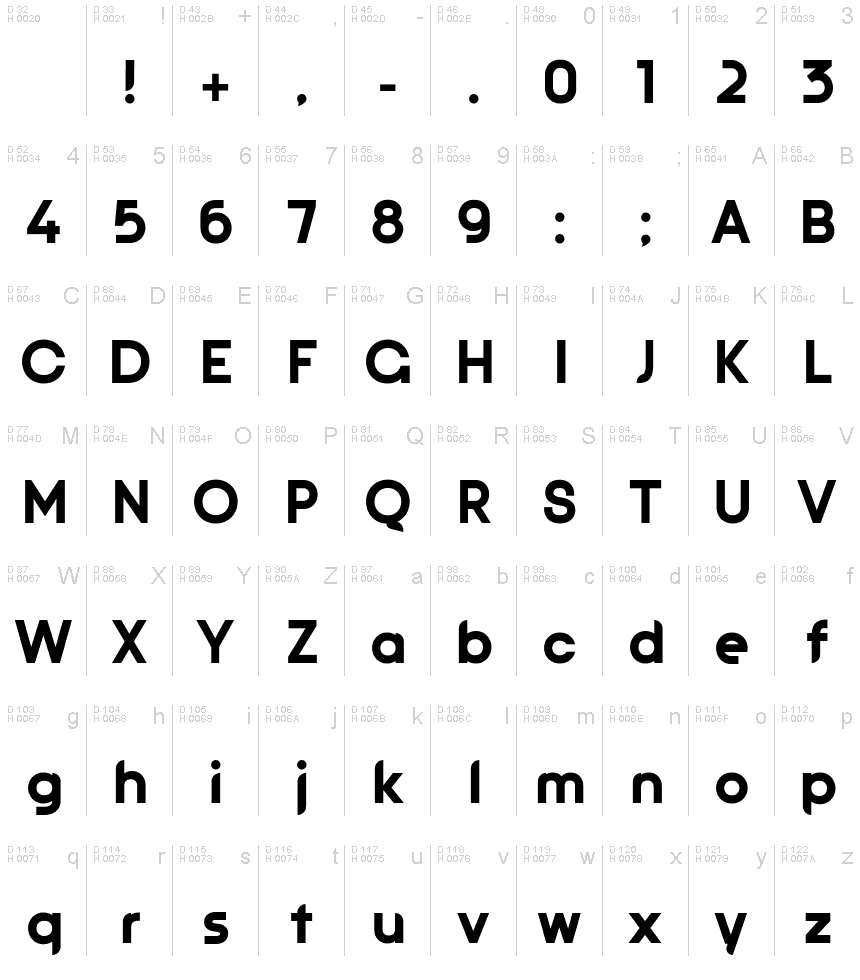
casinospieles-de
Looking for a bold, impactful font that's perfect for your next design project? Look no further than casinospieles-de! Designed by the talented Sadritsky, this sleek and stylish sans serif font is ideal for a wide range of creative projects, from logos and branding materials to posters and digital graphics. With its semi-bold weight and clean lines, casinospieles-de exudes confidence and sophistication, making it the perfect choice for anyone looking to make a statement. So whether you're working on a new business venture or just looking to add some flair to your personal projects, casinospieles-de is the perfect font typeface to help you stand out from the crowd!
Sadritsky